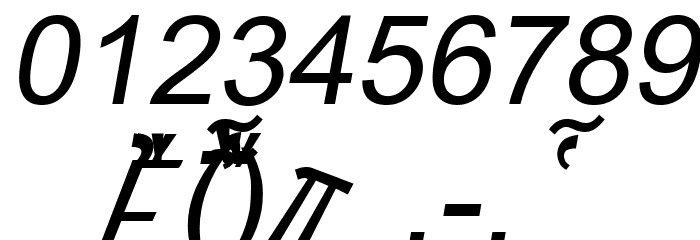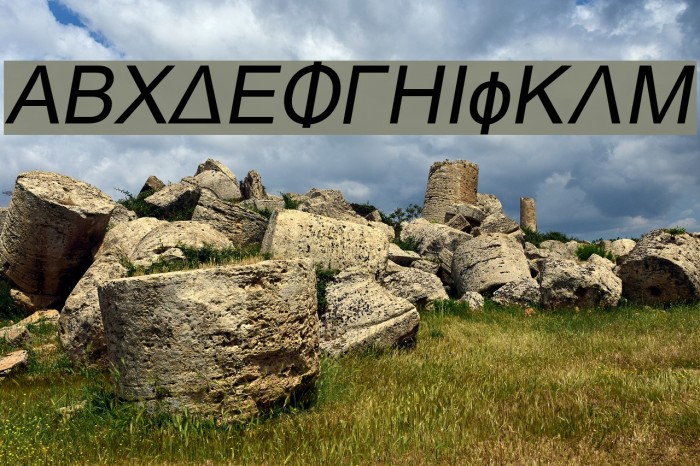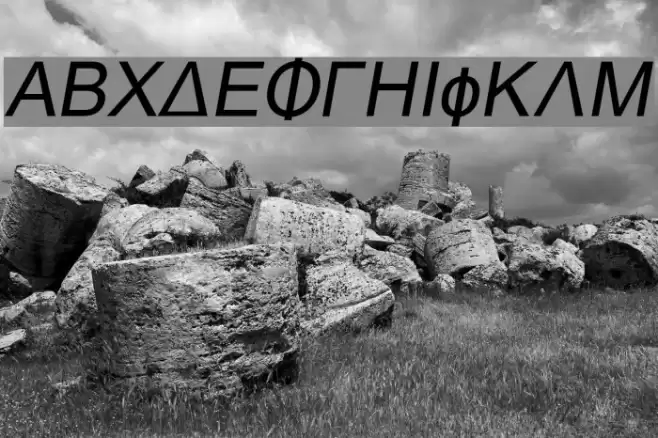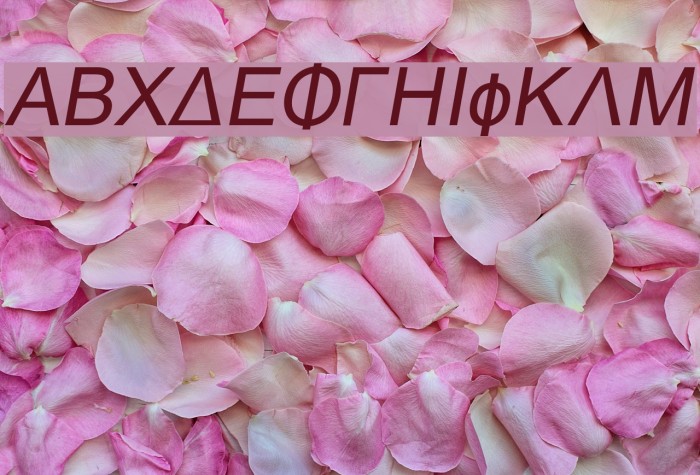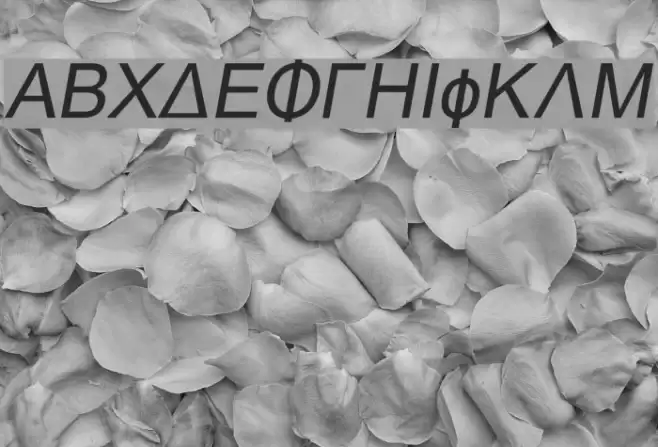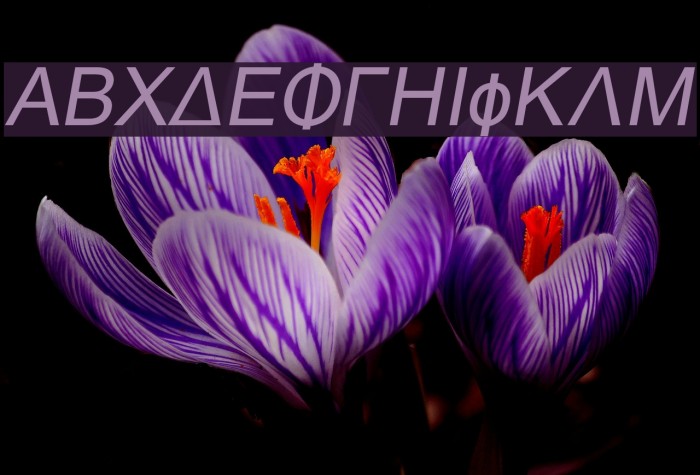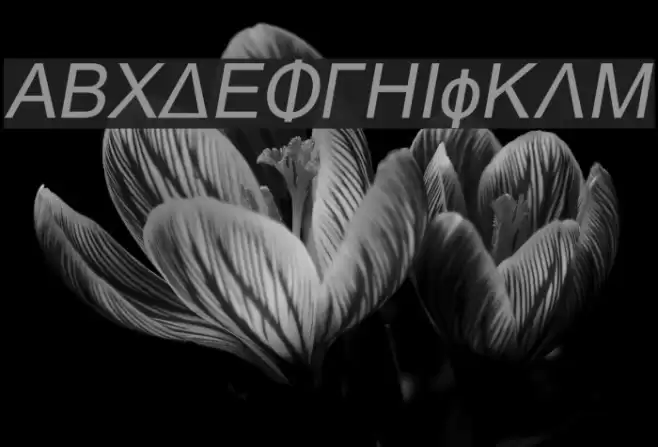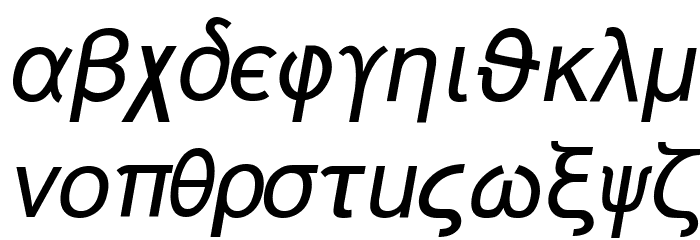
Naxos-Italic Font
Naxos-Italic Description
This font features a modern and elegant italic style with a clean and streamlined appearance. The characters are slightly slanted, giving a sense of motion and fluidity. The font includes a full set of uppercase and lowercase Greek letters, numerals, and a selection of special characters. The strokes are consistent and smooth, with a medium contrast that enhances readability while maintaining a stylish look. The overall design is sophisticated, making it suitable for various applications where a touch of elegance is desired.
| Use Case | Headlines, Body text, Logos |
| Proposed Projects | Ideal for projects such as branding, editorial design, and digital content where a modern and elegant touch is needed. |